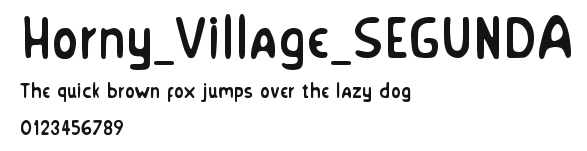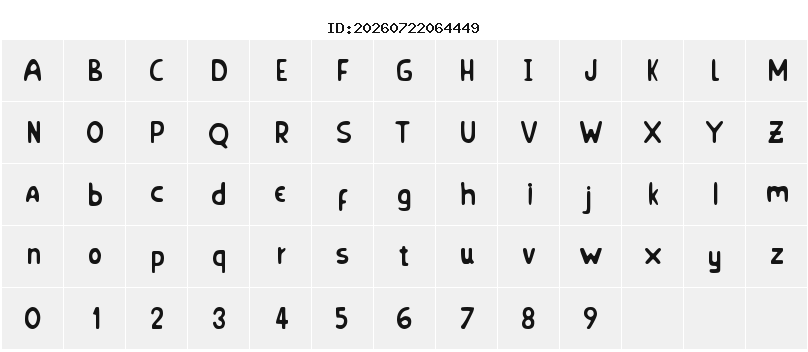
Horny_Village_SEGUNDA Preview
About Horny_Village_SEGUNDA.ttf
Horny_Village_SEGUNDA.ttf is a modern, elegant sans-serif font designed for ultimate readability and visual harmony. Perfect for branding, headlines, web design, and print materials.